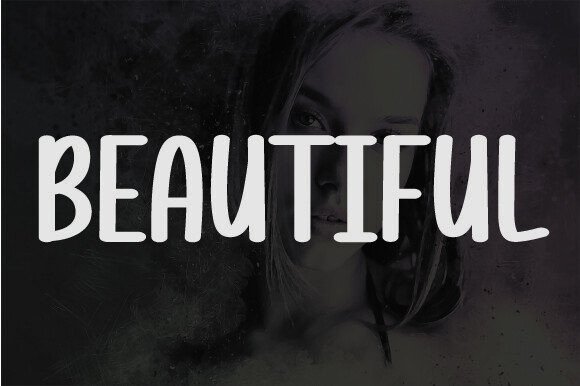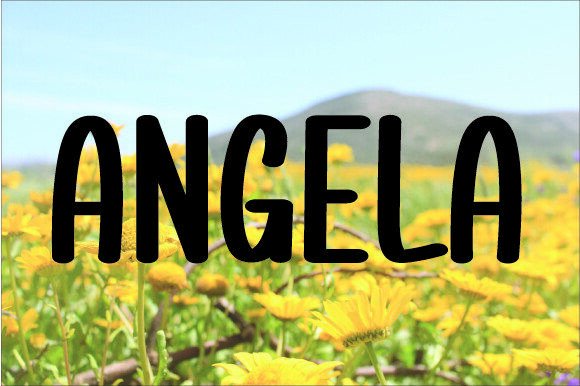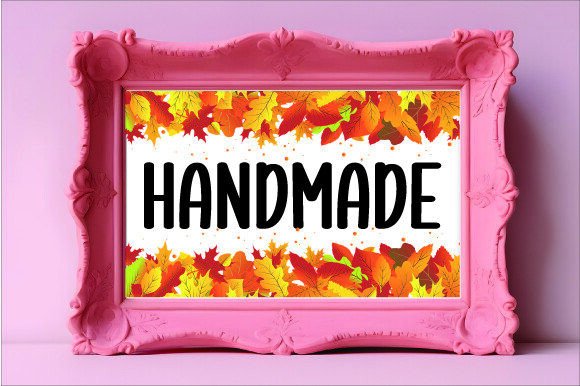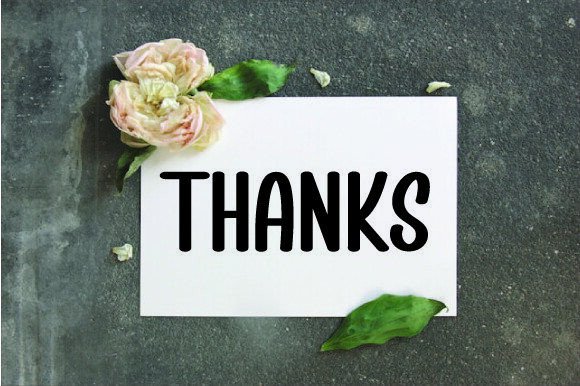
Grunge Font: Unleash Your Rebellious Creativity
Are you tired of using the same old fonts for your designs? Do you want to add a touch of edginess and attitude to your projects? Look no further than the Grunge Font, a bold handwritten font that’s perfect for streetwear branding, music posters, and bold editorial designs.
The Essence of Grunge Font
Grunge is a bold handwritten font with a rugged edge and a cool, no-rules attitude. Its thick, rounded letters channel a rebellious yet friendly vibe that’s sure to grab attention. The font’s unique character is inspired by the grunge movement of the 1990s, with its raw, unpolished aesthetic and DIY ethos.
Key Features of Grunge Font
- Bold and Thick Letters: The Grunge Font features thick, rounded letters that are perfect for making a statement. Its bold strokes and rugged edges give it a rebellious and edgy feel.
- Handwritten Style: The font’s handwritten style gives it a personal and authentic touch. It’s perfect for designs that require a human touch, such as streetwear branding and music posters.
- No-Rules Attitude: The Grunge Font embodies a no-rules attitude that’s perfect for designers who want to push the boundaries of creativity. Its unconventional style is sure to add a touch of excitement to any design.
Perfect for Streetwear Branding
The Grunge Font is perfect for streetwear branding, with its bold and edgy style that’s sure to appeal to a younger audience. Its rugged aesthetic and rebellious vibe make it ideal for brands that want to stand out from the crowd. Whether you’re designing a logo, label, or packaging, the Grunge Font is sure to add a touch of authenticity and coolness to your brand.
Music Posters and Editorial Designs
The Grunge Font is also perfect for music posters and editorial designs, with its bold and attention-grabbing style. Its handwritten style and rugged aesthetic make it ideal for designs that require a personal touch, such as concert posters, album covers, and magazine spreads.
Tips for Using Grunge Font
- Use it Boldly: The Grunge Font is designed to make a statement, so use it boldly and don’t be afraid to experiment with different sizes and colors.
- Pair it with Simple Fonts: The Grunge Font is bold and attention-grabbing, so pair it with simple fonts to create contrast and balance.
- Experiment with Colors: The Grunge Font looks great in bold and bright colors, so experiment with different colors to find the perfect combination for your design.
The Grunge Font is a bold and edgy font that’s perfect for designers who want to add a touch of rebellion and attitude to their designs. Its thick, rounded letters and rugged aesthetic make it ideal for streetwear branding, music posters, and bold editorial designs. With its no-rules attitude and handwritten style, the Grunge Font is sure to unleash your creativity and take your designs to the next level.
Get Ready to Stand Out
With the Grunge Font, you’re not just using a font – you’re making a statement. You’re saying that you’re bold, you’re fearless, and you’re not afraid to break the rules. So why settle for ordinary fonts when you can make a statement with the Grunge Font? Get ready to stand out and unleash your rebellious creativity.